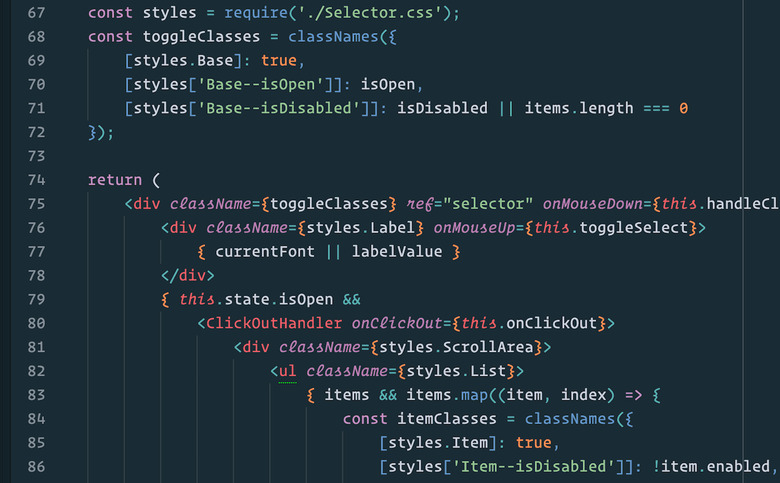
'Operator' is a font designed to make coding easier
The idea is to put an emphasis on how certain characters appear in a programming environment.
While many of us bristle at the sight of Comic Sans (this writer included), coders have an altogether different view of typefaces and how they're presented. Thus, Operator Mono, the new font from one of the highest-regarded typeface-creators that was forged to make life easier for the folks who build the websites you visit. "In developing Operator, we found ourselves talking about Javascript and CSS," founder Jonathan Hoefler writes. While the blog post about typography and font faces can come off as a bit pretentious, it's clear that the team paid attention to how the likes of brackets, commas and semicolons are spaced and how they appear in back-end coding environments.
The idea is to help a programmer easily identify an extra parentheses or an errant "I" where a "1" belongs amid thousands of lines of code. Operator Mono achieves this with color and italics for the characters that are more important to developers than a typical writer. Oh, and it costs $200 if you like it well enough. Should you want a behind the scenes look at the font creation process, take a gander at the video over at the source.